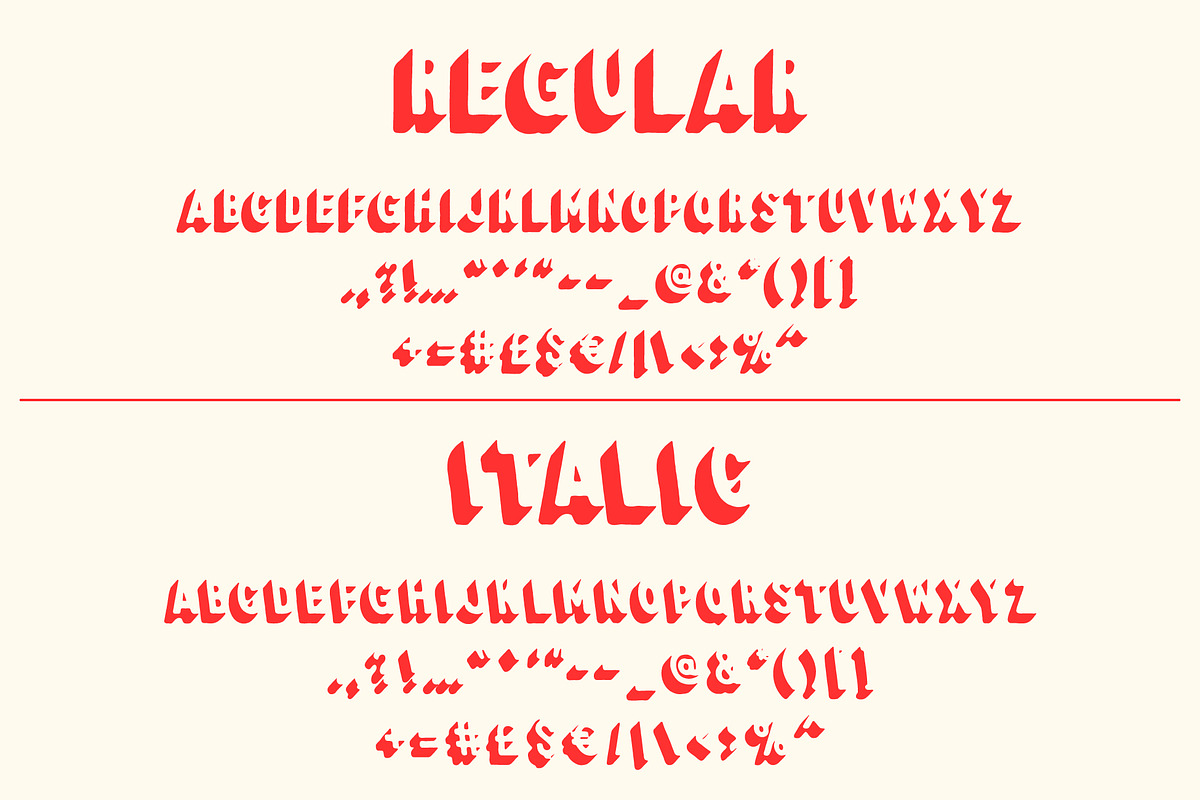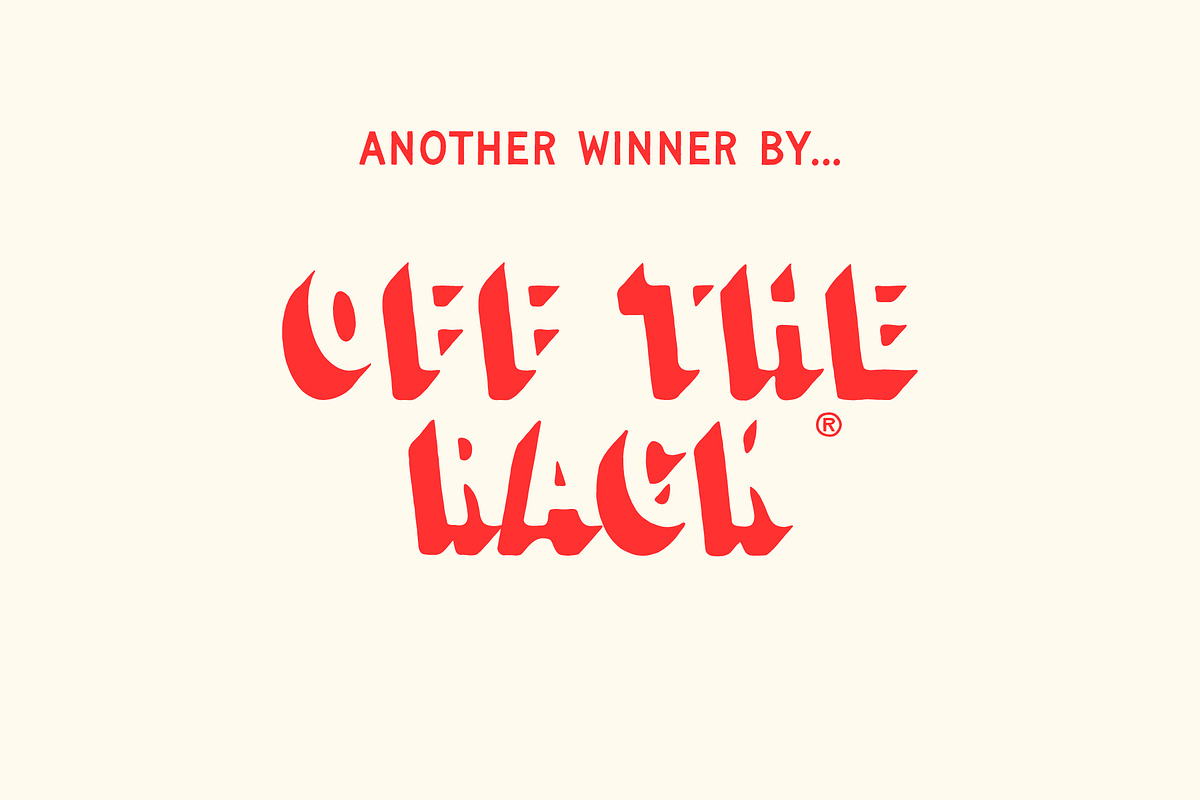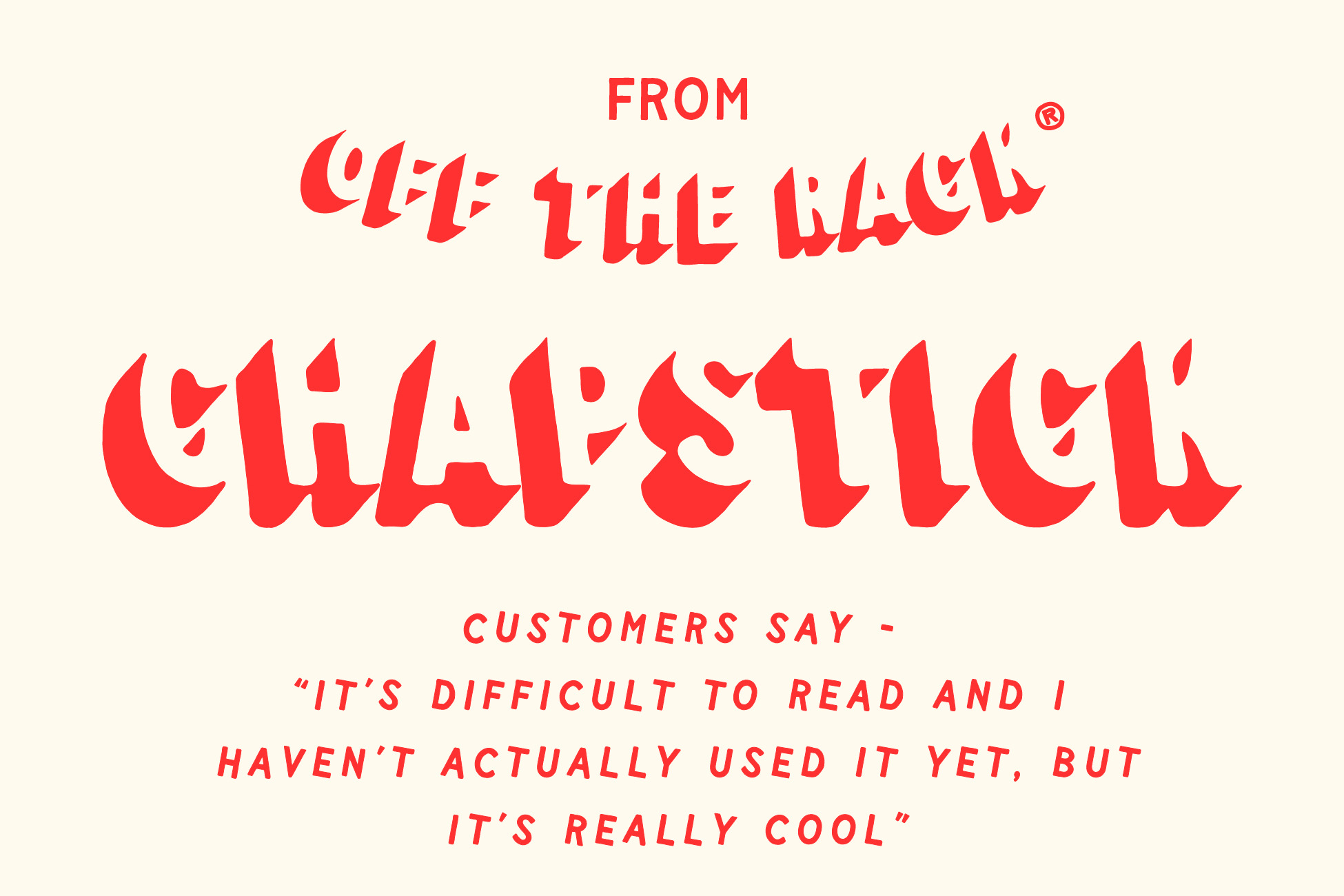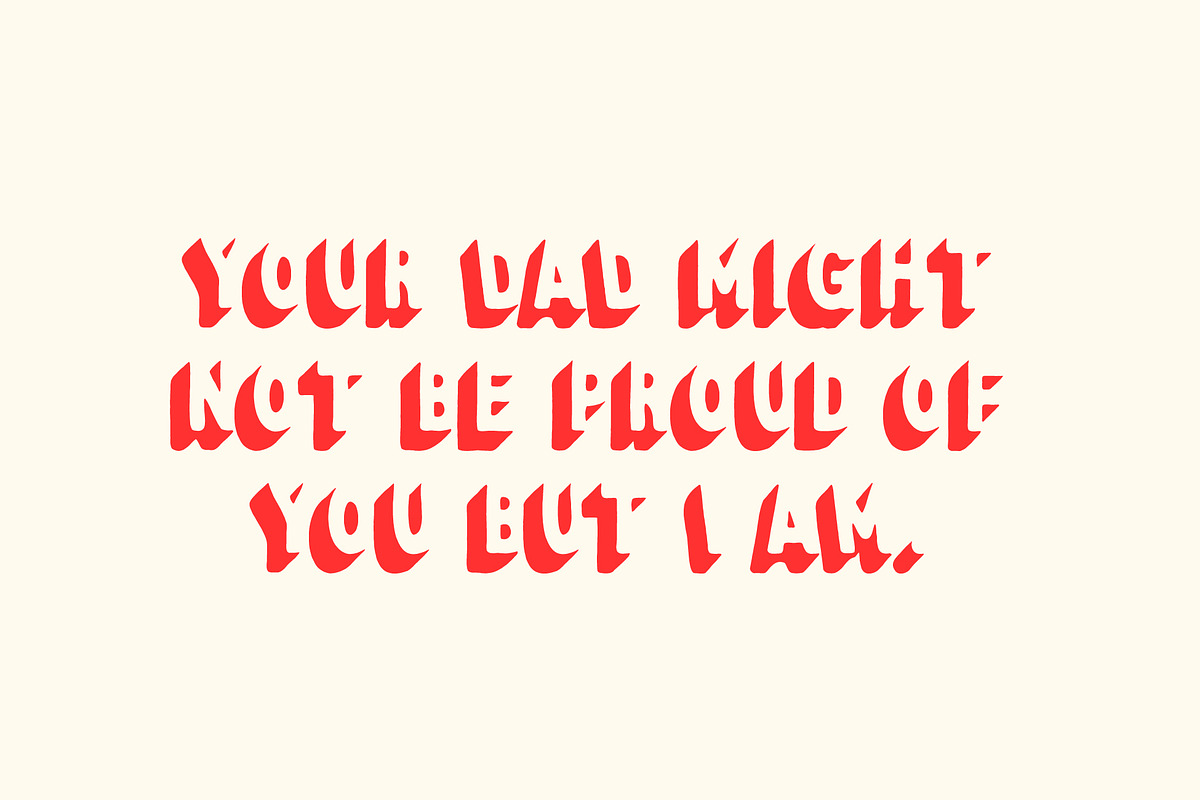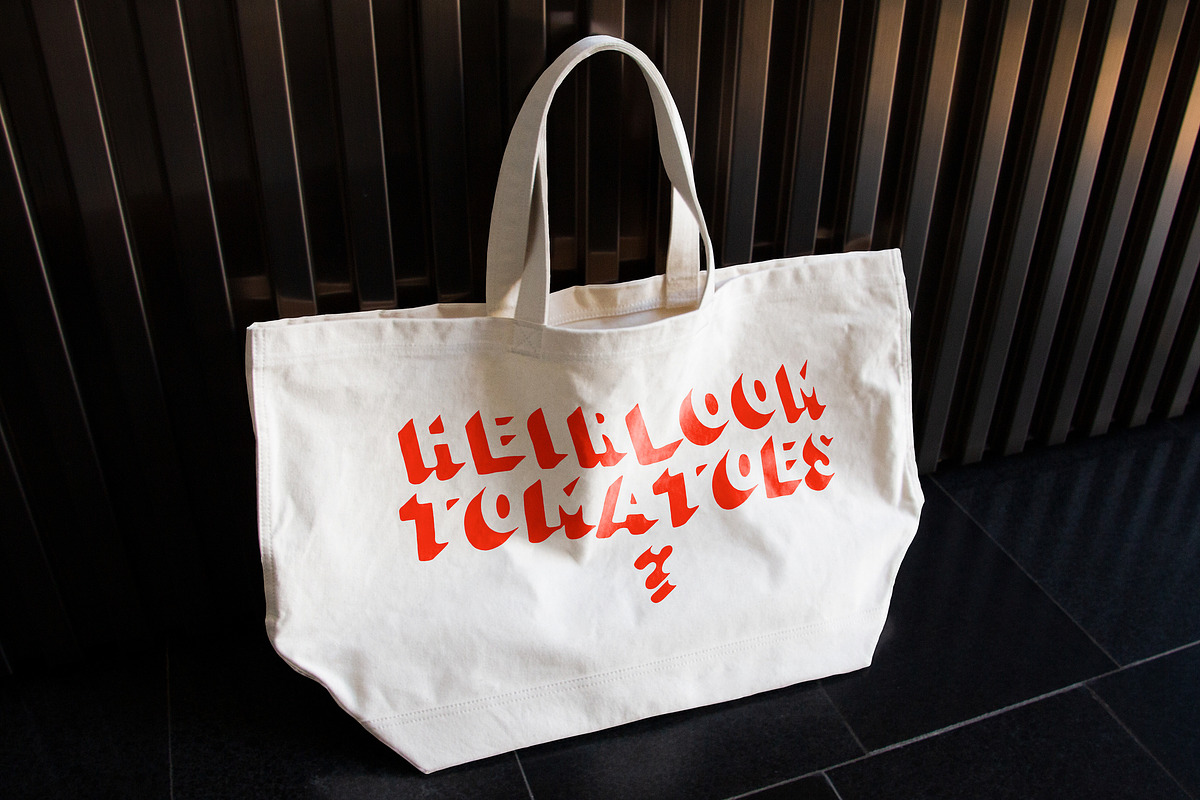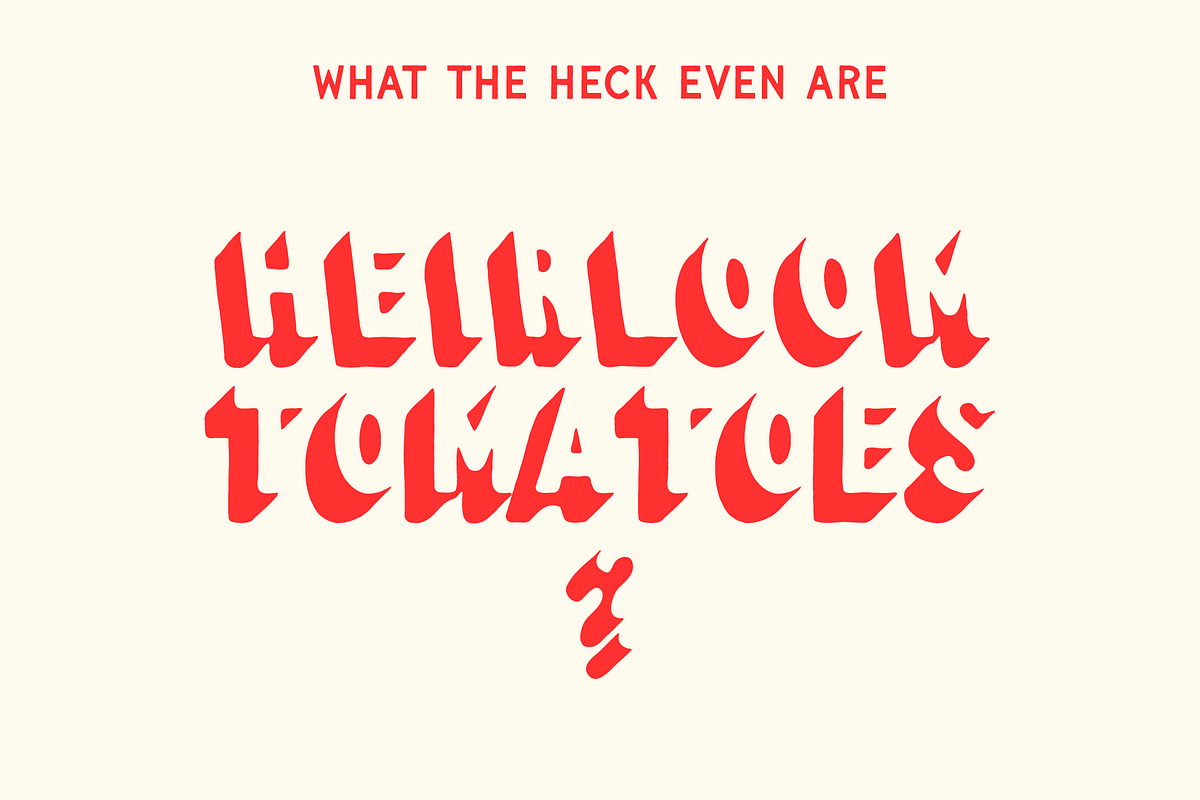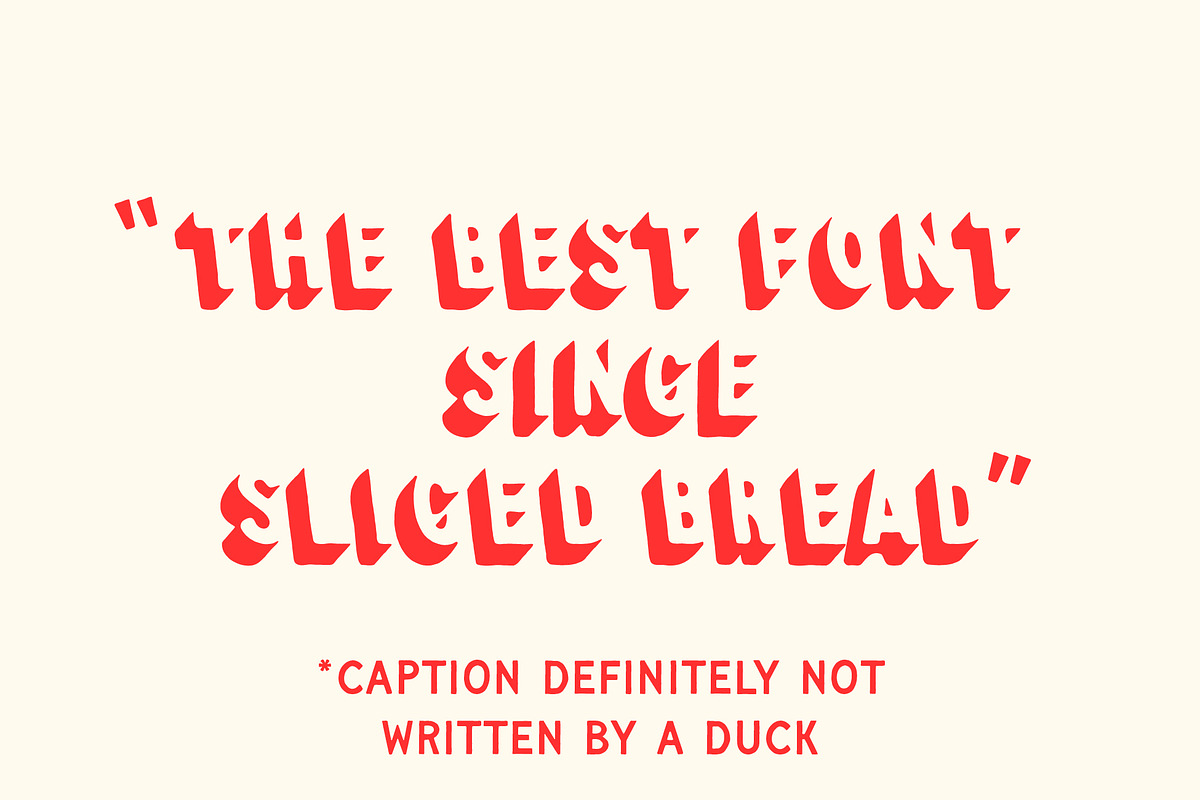
Chapstick Handdrawn Display Font
Chapstick is one of those fonts you barely ever use, but when you DO it's like that dopamine hit of waking up and doom scrolling before your morning coffee.
Inky, hard to read and packed full of charm, Chapstick is just fun. Use it like ketchup and slap it on everything. 🍅